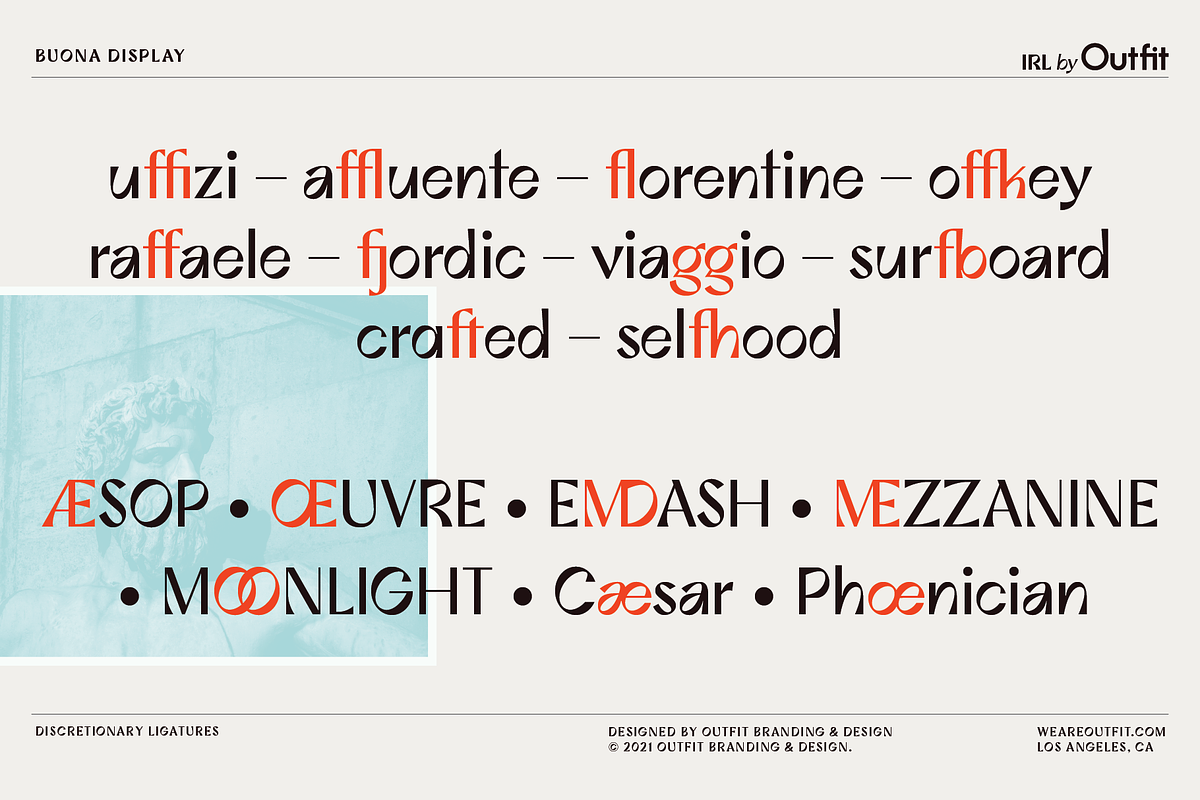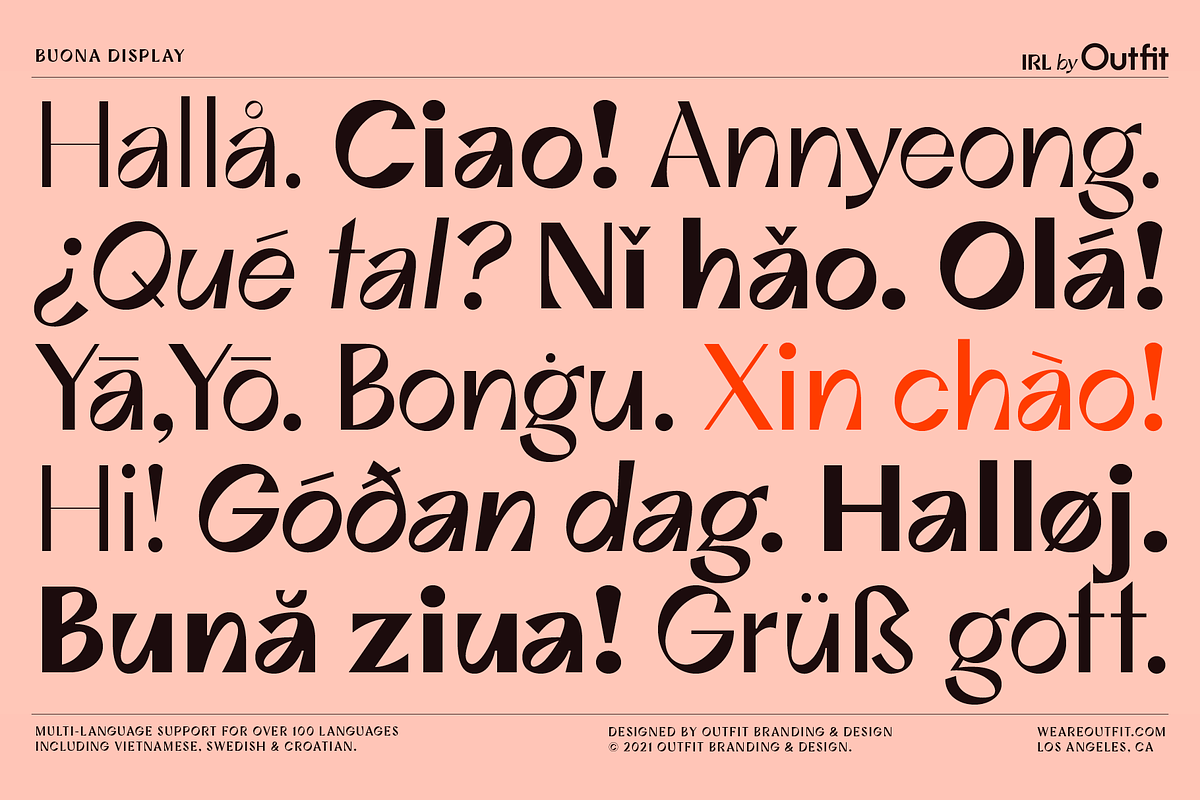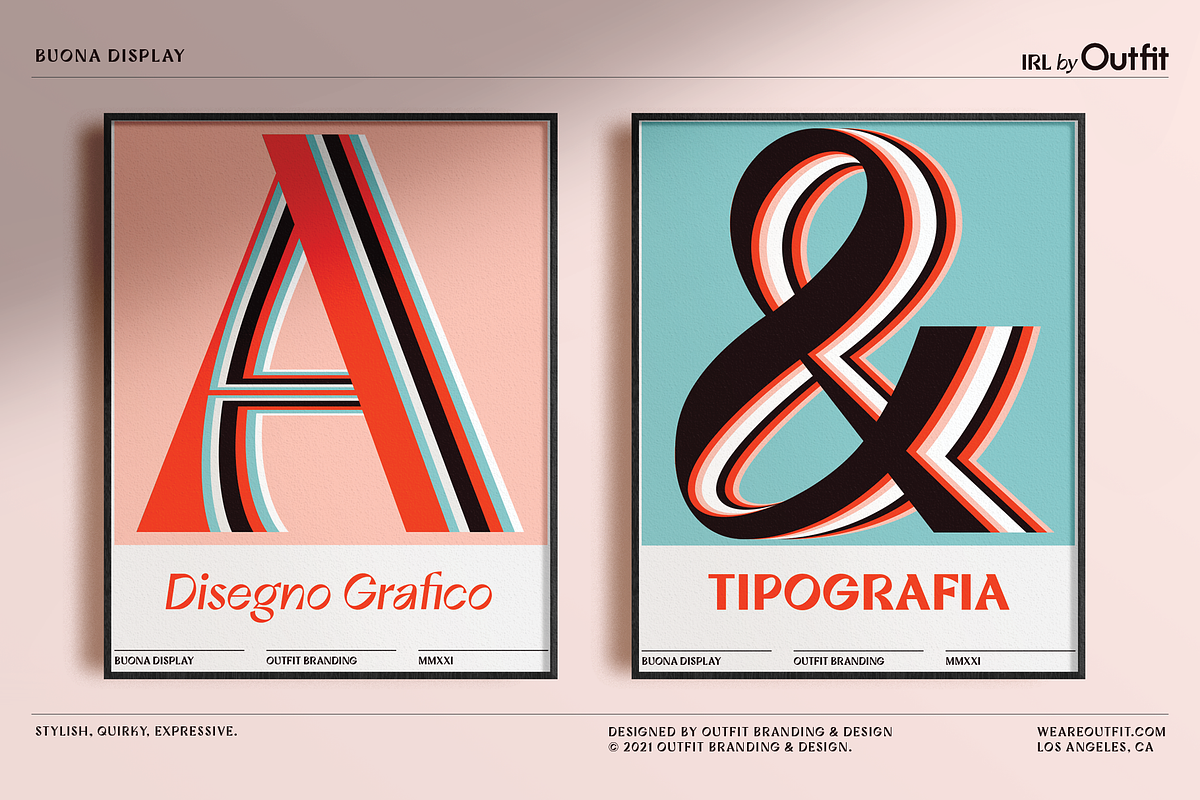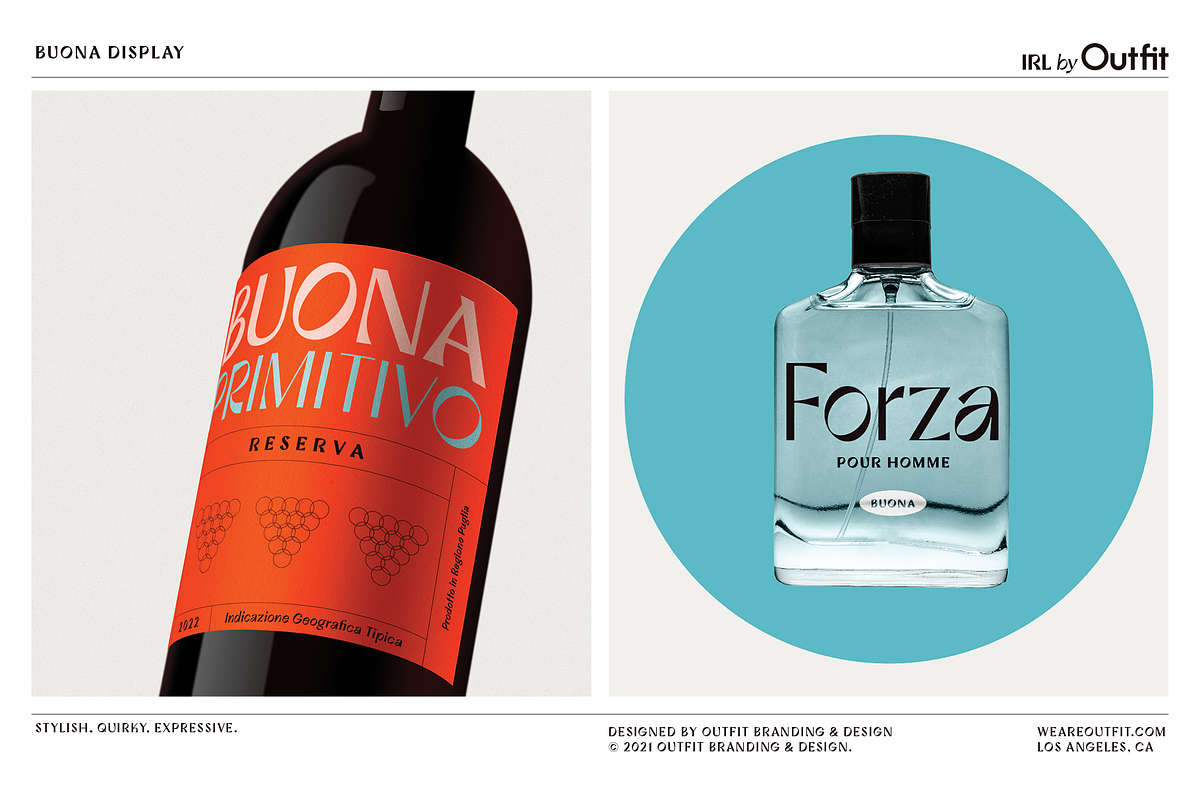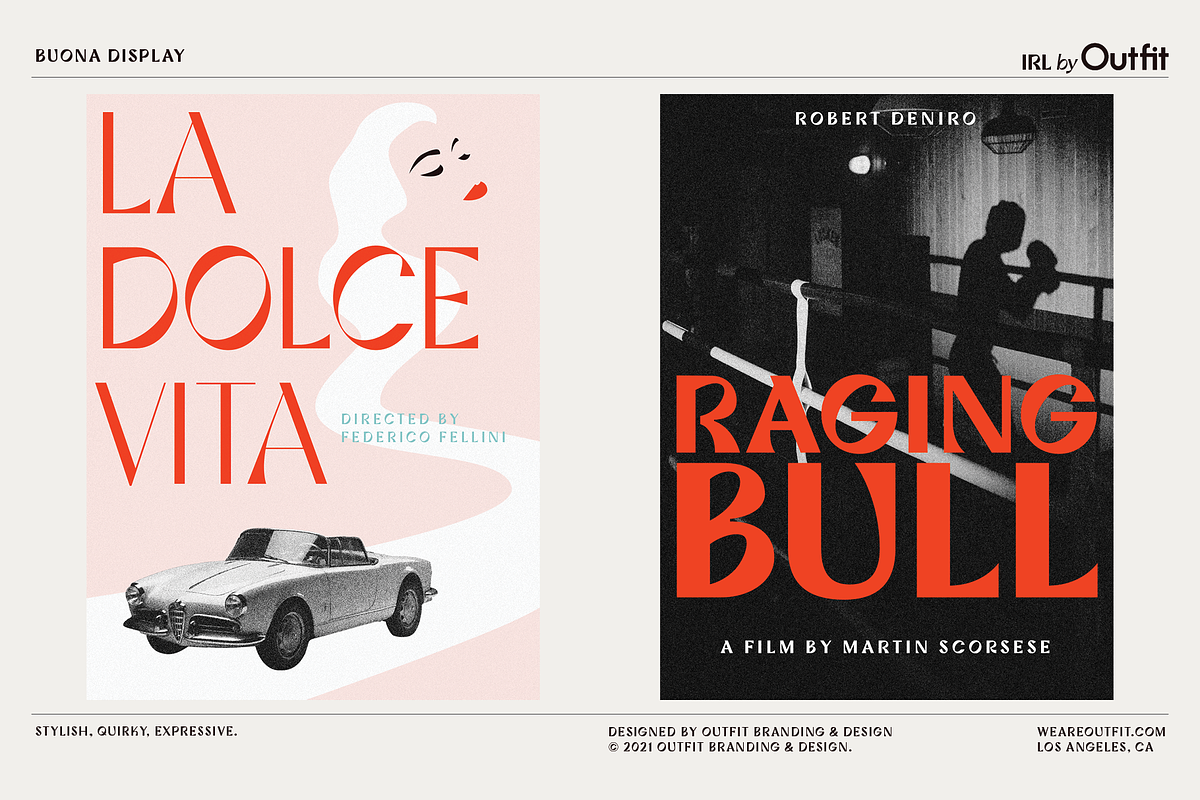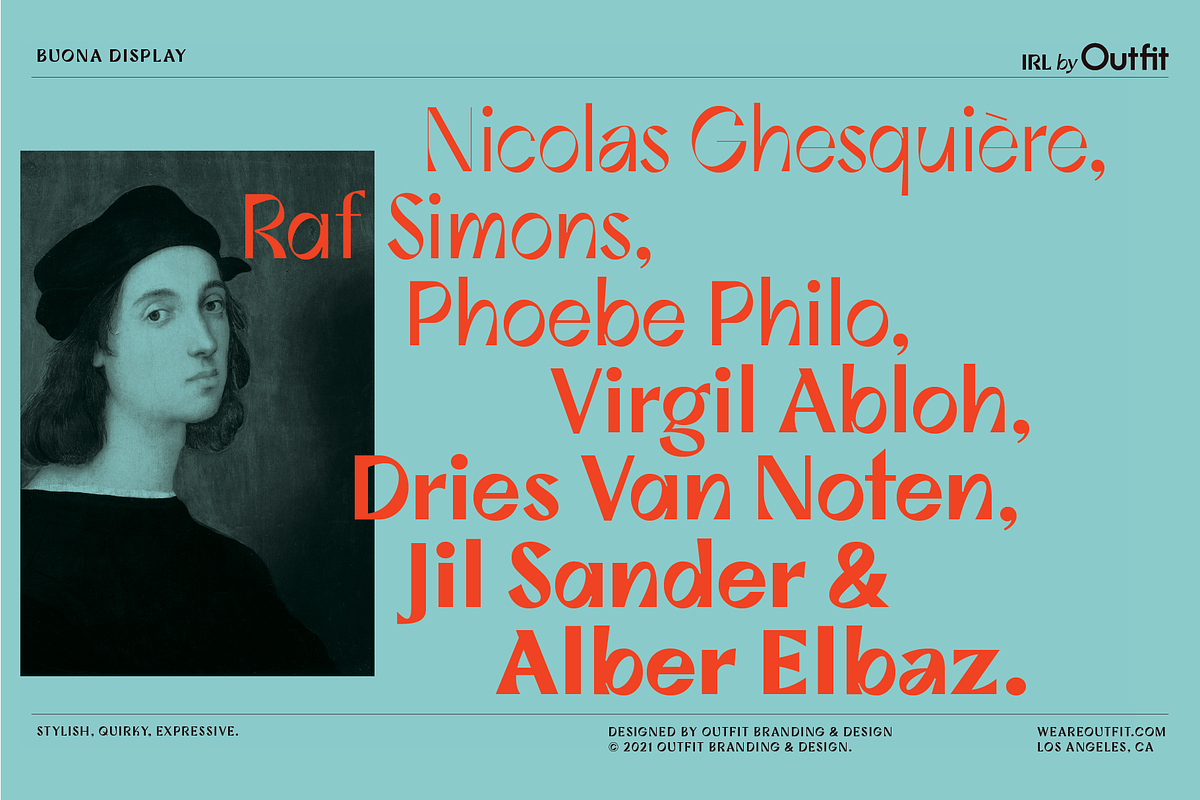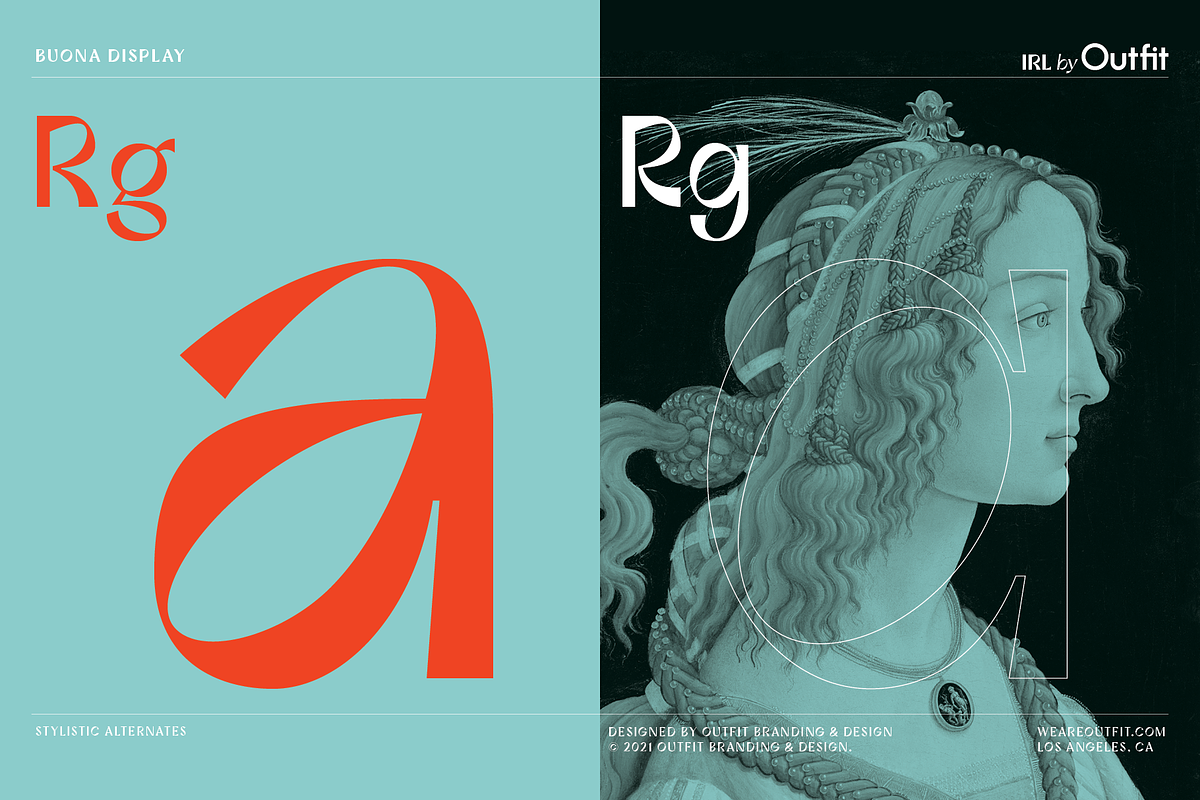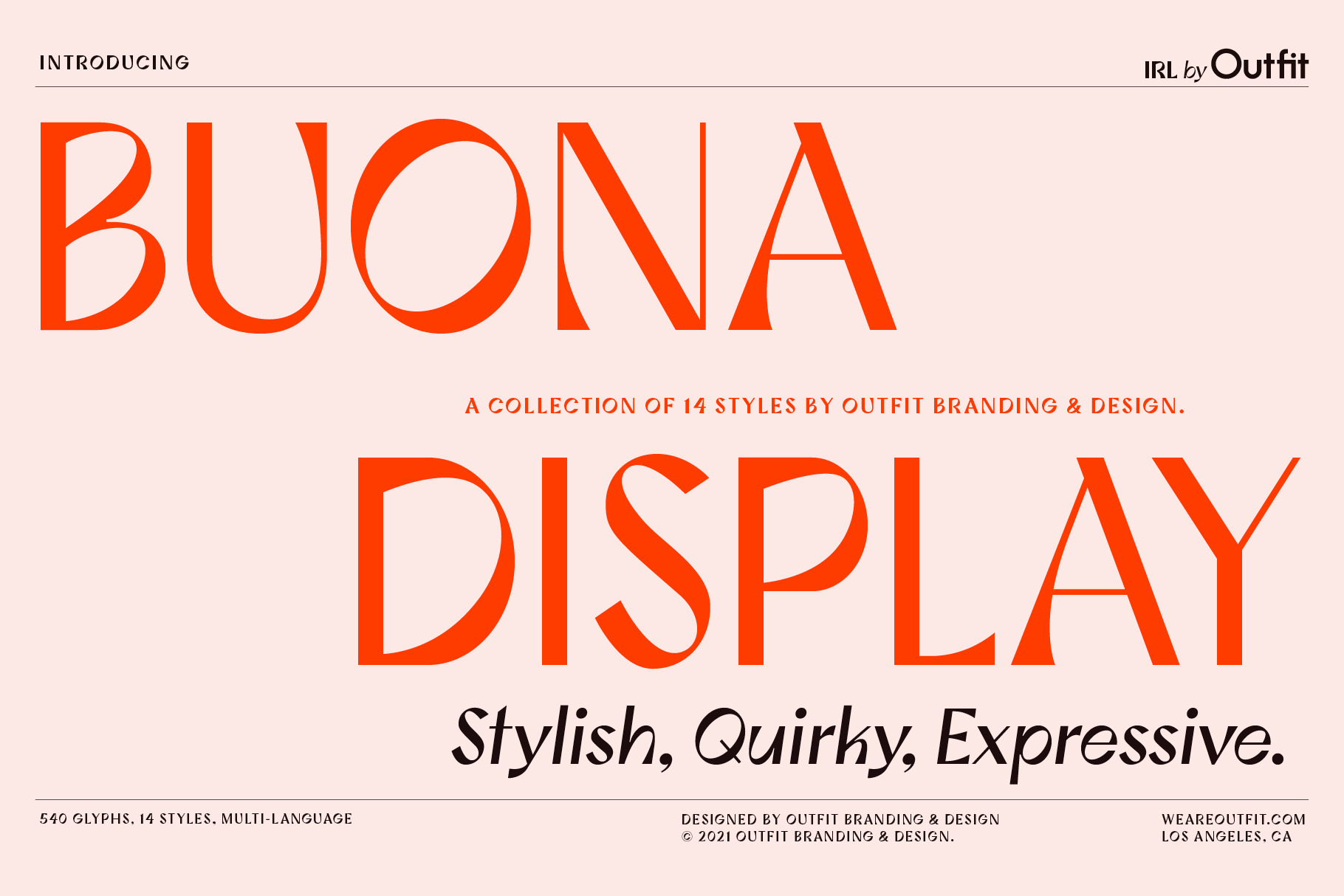
Buona Display Font Family
Made for attention-grabbing display usage and inspired by the rich history and lineage of Italian type, Buona Display has tons of boldness and a little bit of eccentricity, along with sophisticated details that hold up at very large sizes. With a wide range of expression and personality, it can be used for everything from fashion labels to logotypes, to modern editorial and billboard signage.
Buona is the answer to the question “what happens if we take a classic old style diagonal axis and reverse it?” Vivacious and oddly refined, Buona Display is a larger-than-life type that feels contemporary and stylish, yet wholly subversive.
With over 540 glyphs per style, it has many OpenType features like standard and discretionary ligatures, stylistic alternates, 5 sets of digits, superiors and inferiors, and fractions.